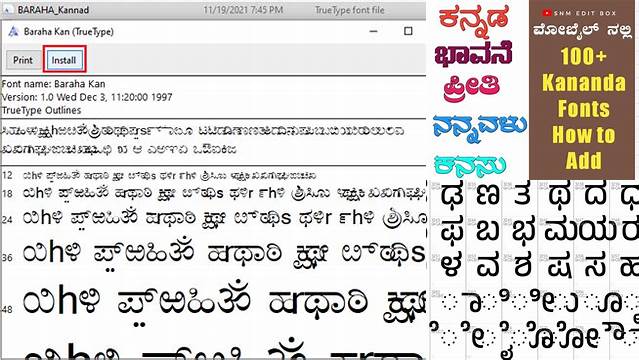
Kannada Font Free Download PDF: Your Ultimate Guide
Are you looking for kannada font free download pdf options? You've come to the right place! In this comprehensive guide, we'll walk you through everything you need to know about Kannada fonts, where to find them, and how to use them. Whether you're a designer, a student, or just someone who loves the Kannada language, this article will provide valuable insights and resources. Let’s dive in and explore the world of Kannada typography!
Why Kannada Fonts Matter
Kannada fonts are essential for anyone looking to create content in the Kannada language, whether it's for digital or print media. The right font can significantly enhance the readability and aesthetic appeal of your text, making your message more impactful. When you think about kannada font free download pdf, you're not just thinking about characters; you're thinking about how those characters come together to form words, sentences, and ultimately, communication. A well-chosen font can reflect the cultural richness and heritage of the Kannada language, ensuring that your content resonates with your audience. Imagine trying to read a beautifully written novel in a font that's difficult to decipher – the experience would be frustrating, right? Similarly, using a suitable Kannada font ensures that your readers can engage with your content comfortably and effectively. Fonts also play a crucial role in branding and creating a distinct visual identity. A unique and well-designed font can help your brand stand out, especially in a market where visual communication is key. So, whether you're designing a logo, creating marketing materials, or writing a book, selecting the right Kannada font is a decision that can have a significant impact. It’s about more than just aesthetics; it’s about respecting the language and ensuring your message is delivered clearly and beautifully. The availability of kannada font free download pdf options makes it easier than ever to access a variety of styles and designs, allowing you to find the perfect font for your needs without breaking the bank. This accessibility is particularly important for individuals and organizations with limited budgets, ensuring that high-quality typography is within reach for everyone. So, let’s explore the best resources and tips for finding and using Kannada fonts effectively.
Understanding Kannada Script and Typography
Before we delve into where to find kannada font free download pdf, let's understand the Kannada script itself. The Kannada script is a Brahmic script used primarily to write the Kannada language, which is spoken by millions of people in the state of Karnataka, India, and beyond. Understanding the nuances of this script is crucial when selecting and using Kannada fonts. The Kannada script is known for its beautiful, rounded forms and intricate characters. It's a phonetic script, meaning that the pronunciation of a word closely corresponds to its written form. This characteristic makes the choice of font even more critical, as the font needs to accurately represent the sounds and structures of the language. Good typography in Kannada involves careful consideration of factors such as character spacing, line height, and overall visual harmony. A well-designed Kannada font will ensure that the text is legible and aesthetically pleasing, even at small sizes. This is particularly important for body text in books, newspapers, and online articles, where readability is paramount. Typography also plays a significant role in conveying the tone and style of your content. A formal font might be appropriate for academic writing or business communications, while a more playful font could be used for children's books or creative projects. The cultural context of the Kannada script cannot be overlooked. The script has a rich history and is deeply intertwined with the cultural identity of the Kannada-speaking community. When selecting a font, it’s important to consider how the font reflects and respects this cultural heritage. For example, traditional Kannada fonts often incorporate calligraphic elements that evoke a sense of history and tradition. In contrast, modern Kannada fonts may embrace a more contemporary aesthetic, reflecting the evolving nature of the language and its usage in digital media. The availability of kannada font free download pdf options means that you have a wide range of choices, from classic styles to innovative designs. By understanding the Kannada script and the principles of typography, you can make informed decisions and select fonts that truly enhance your communication. So, let's move on to exploring where you can find these valuable resources.